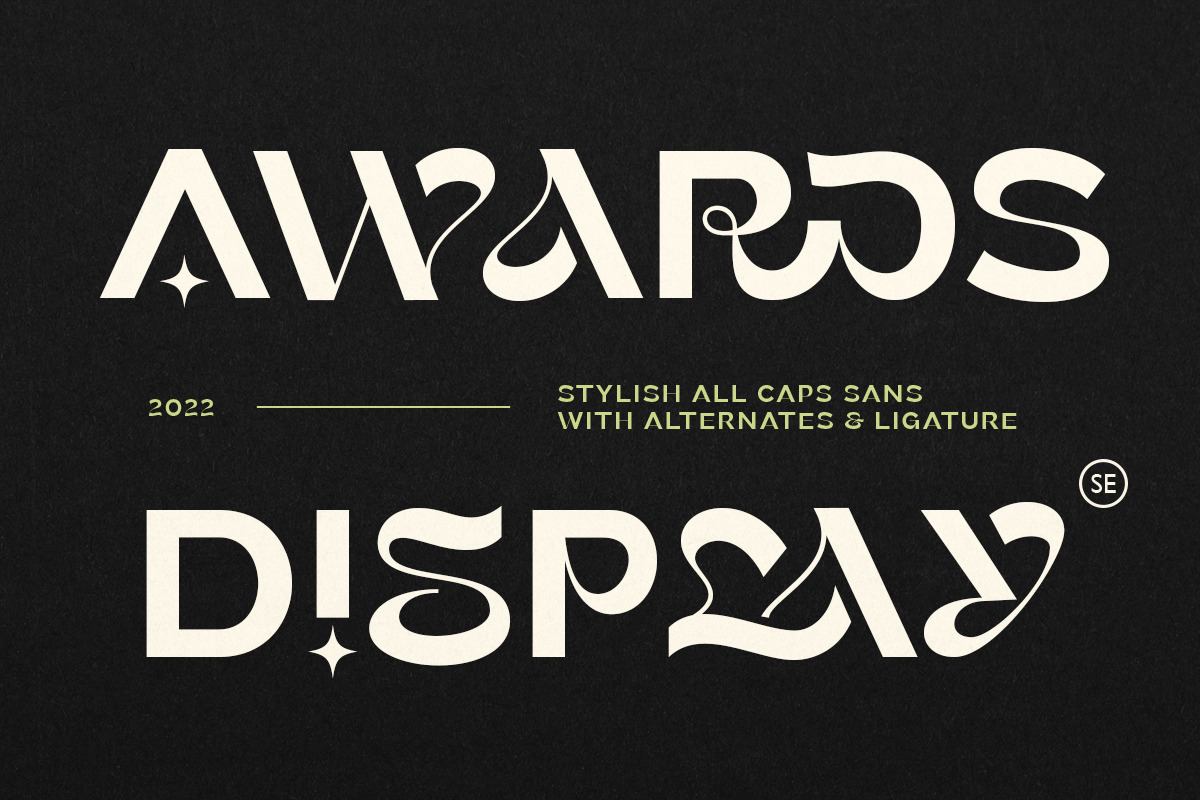
Awards - Stylish Display Sans Font Free Download is a bold and contemporary typeface designed to make a statement. With its clean lines and modern aesthetic, this font is perfect for headlines, logos, posters, and other creative projects that need to stand out. Its versatile style combines elegance with simplicity, making it ideal for both professional and artistic designs.